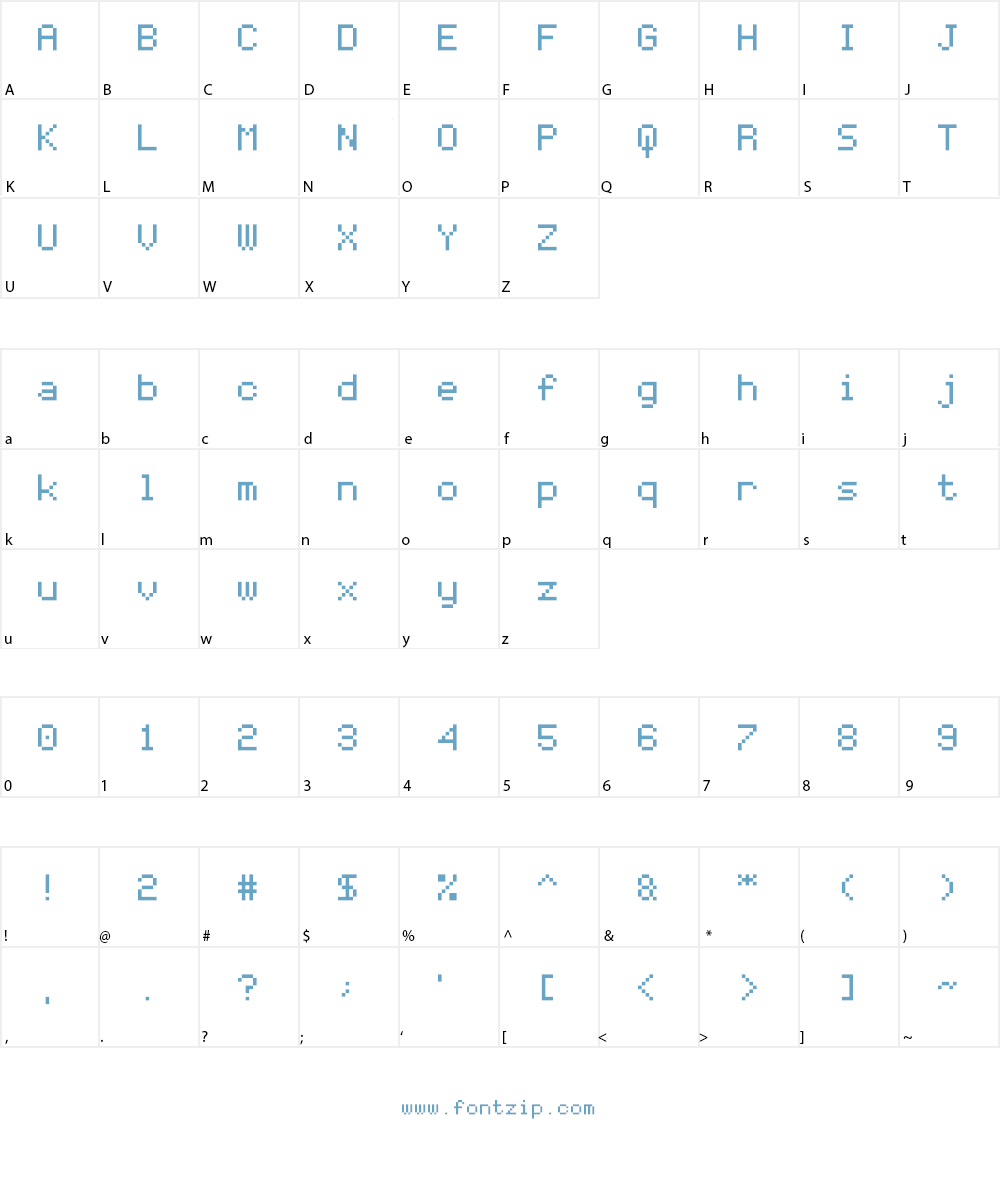
A free-for-all-use pixellated font. Designed to be legible but tiny, for coders that like to see as much code on one screen as possible. Preview at a size of 9px to see the font at its intended size.